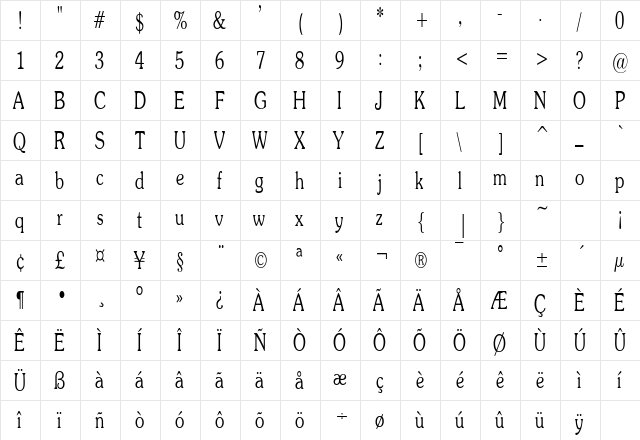
SouvienneCondensed Regular
Design Context for SouvienneCondensed Typeface
SouvienneCondensed offers clean, dependable letterforms without strong stylistic allegiance, making it a practical choice for designers who need flexibility. The condensed width makes it efficient for tight spaces without sacrificing legibility.
Pro Tip: Use SouvienneCondensed in both headline and body roles to test its range before committing to a single application.